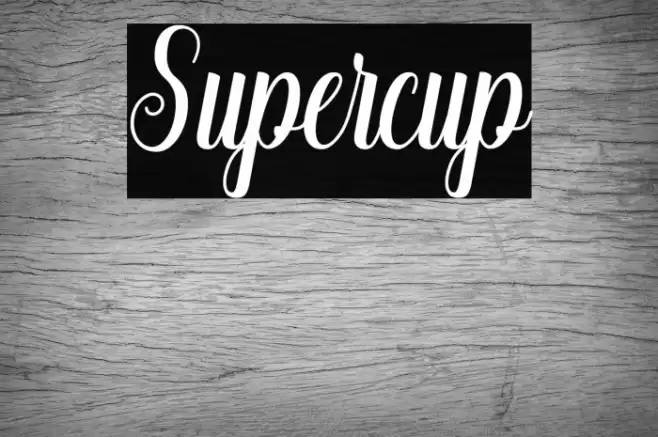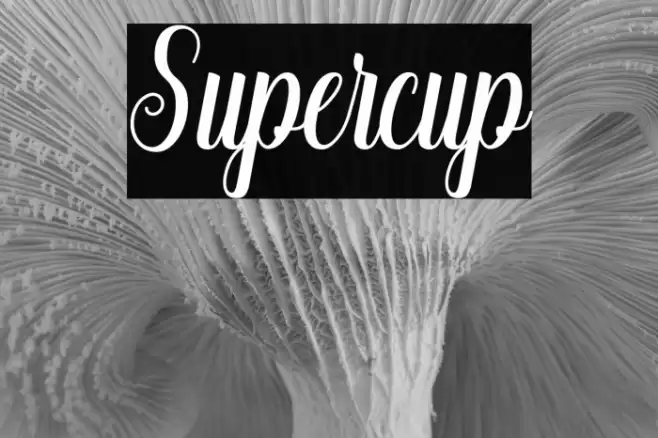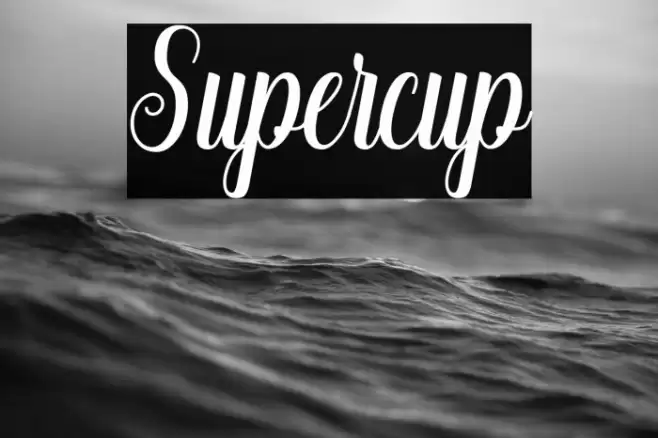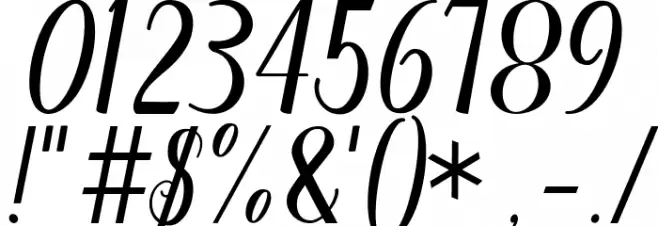
Supercup Font
Supercup Description
This font features a dynamic and elegant script style with a modern twist. The uppercase letters are tall and slightly condensed, with a graceful flow that adds a touch of sophistication. The lowercase letters maintain a consistent rhythm, with smooth curves and a slight slant that enhances readability. The numerals are bold and clear, complementing the overall aesthetic. Special characters are designed with the same attention to detail, ensuring versatility in various design contexts. The font's high contrast between thick and thin strokes adds to its visual appeal, making it suitable for eye-catching headlines and stylish branding.
A modern, elegant script font with high contrast and smooth curves from Regular fonts.